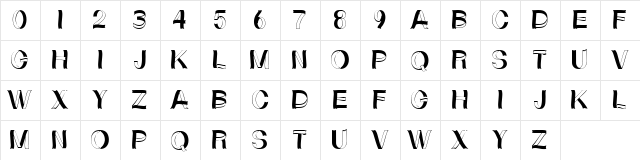
CurlyRibbons Regular Free Font
CurlyRibbons Regular
Design Context for CurlyRibbons
CurlyRibbons is a composed and adaptable typeface that performs quietly and consistently across a wide range of design contexts.
Pro Tip: Use CurlyRibbons in both headline and body roles to test its range before committing to a single application.